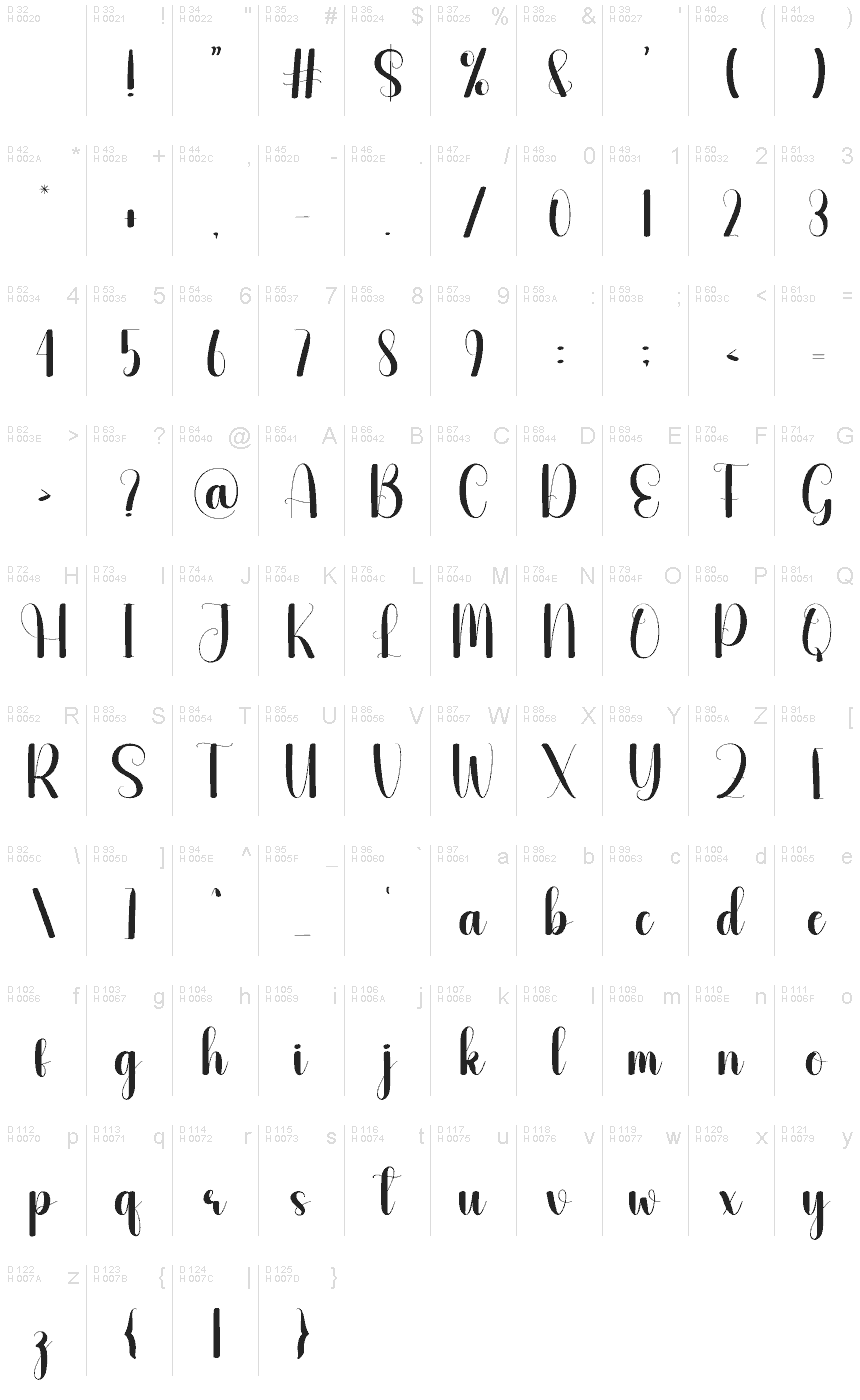
Rolsting
Rolsting font by Andi Moz is an elegant calligraphy font with expressive and ornate details. The modern script has a romantic flair, showcasing its beauty within the condensed width designed for easier fitting in prints and digital files. Though not bolded, attention is drawn to each detail of Rolsting as every word or message gets clearly acknowledged.